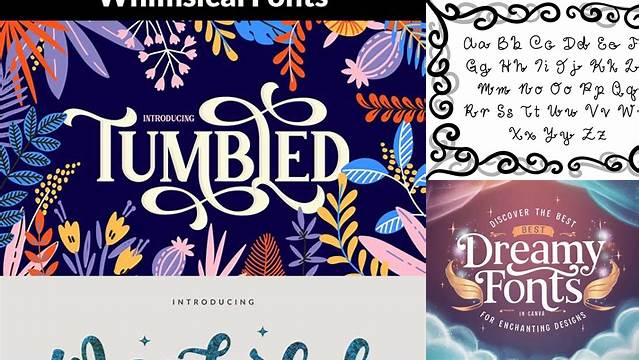
10 Best Curly Fonts For Whimsical Designs
Curly fonts, with their playful loops and elegant swirls, are a fantastic way to add personality and flair to your designs. Whether you're working on a branding project, designing invitations, or crafting social media graphics, the right curly font can make all the difference. In this guide, we'll explore some of the best curly fonts available, discuss their unique characteristics, and provide tips on how to use them effectively. Let's dive in and discover the world of whimsical typography!
What Are Curly Fonts?
Curly fonts, also known as script fonts or handwritten fonts, are characterized by their flowing strokes and decorative flourishes. They mimic the look of cursive handwriting, often featuring loops, swirls, and elegant curves. These fonts exude a sense of creativity, warmth, and personality, making them ideal for projects that require a touch of human touch. Curly fonts are incredibly versatile and can range from playful and casual to elegant and sophisticated, offering a wide array of options for different design needs.
Types of Curly Fonts
Curly fonts come in various styles, each with its own unique charm. Some common types include:
- Calligraphic Fonts: These fonts resemble traditional calligraphy, with graceful strokes and elaborate letterforms. They often convey a sense of elegance and sophistication, making them suitable for formal invitations, wedding designs, and luxury branding.
- Brush Script Fonts: Designed to mimic the look of brush lettering, these fonts have a more textured and dynamic appearance. They are perfect for projects that need a handmade or artistic touch, such as logos, posters, and packaging.
- Handwritten Fonts: These fonts aim to replicate natural handwriting, often featuring slight imperfections and variations in stroke weight. They add a personal and authentic feel to designs, making them great for social media graphics, blog headers, and personal projects.
- Swash Fonts: Swash fonts include decorative extensions or flourishes on certain letters, adding an extra touch of elegance and flair. They are often used sparingly to highlight key words or phrases in a design.
Characteristics of Great Curly Fonts
When choosing a curly font, there are several factors to consider to ensure it aligns with your project's goals. Great curly fonts are not only visually appealing but also highly functional and versatile. Here are some key characteristics to look for:
- Readability: While curly fonts are decorative, readability should always be a priority. Choose fonts that are easy to read, especially in smaller sizes. Avoid fonts with overly complex or intricate letterforms that can become illegible.
- Legibility: Legibility refers to how easily individual letters can be distinguished from one another. A font with good legibility ensures that the message is clear and easily understood. Pay attention to the distinctiveness of each letter, especially lowercase letters.
- Versatility: A versatile curly font can be used in a variety of design contexts. Look for fonts that come in multiple weights and styles, allowing you to create visual hierarchy and add depth to your designs. Fonts that include alternate characters or ligatures can also enhance their versatility.
- Personality: The font should reflect the overall tone and style of your project. Consider whether you need a font that is playful and casual or elegant and sophisticated. The font's personality should align with your brand or message.
- Kerning and Spacing: Proper kerning (the space between individual letters) and spacing (the space between words and lines) are crucial for readability and visual appeal. A well-kerned and spaced font will look polished and professional.
Top Curly Fonts for Your Projects
Now that we've discussed what makes a great curly font, let's explore some of the best options available. These fonts have been carefully selected for their readability, versatility, and unique personalities. Whether you're designing a logo, creating invitations, or crafting social media content, there's a curly font on this list that will perfectly suit your needs. Let’s explore some top curly fonts:
1. Lobster
Lobster is a bold and playful script font that's perfect for headlines, logos, and posters. Its retro-inspired design and strong presence make it a popular choice for a variety of projects. Lobster's distinctive letterforms and smooth curves add a touch of vintage charm to any design. The font's slightly condensed form allows for a large number of characters to fit within a limited space, making it highly efficient for headlines and titles. The playful yet legible design of Lobster ensures it captures attention while remaining easily readable, making it a versatile choice for both print and digital media. Lobster is also notable for its extensive character set, which includes a variety of alternate characters and ligatures, providing designers with numerous options to customize their typography. This feature allows for a more bespoke and handcrafted feel, ensuring each design can achieve a unique and personalized touch. The bold nature of Lobster makes it an excellent choice for branding materials, ensuring a strong and memorable visual identity.
2. Pacifico
Pacifico is a fun and friendly brush script font that exudes a casual and approachable vibe. It's ideal for websites, blogs, and social media graphics. The rounded letterforms and slightly irregular strokes of Pacifico give it a natural, handwritten feel. This font is particularly well-suited for projects aiming to convey a sense of warmth and authenticity, making it a favorite for designs that require a personal touch. Pacifico's clean and legible design ensures that it remains readable even in smaller sizes, adding to its versatility across various applications. The casual and approachable nature of Pacifico makes it a perfect fit for branding elements of businesses targeting a young or family-oriented demographic, creating a friendly and inviting visual appeal. Its flowing lines and relaxed style contribute to a laid-back aesthetic, ideal for informal communications and designs.
3. Great Vibes
Great Vibes is an elegant and flowing calligraphy font that adds a touch of sophistication to invitations, wedding designs, and formal announcements. Its graceful curves and delicate strokes create a sense of timeless beauty. Great Vibes is perfect for projects that require a touch of class and refinement, making it a popular choice for high-end branding and editorial design. The font’s elegant letterforms and balanced proportions make it highly legible, ensuring that it remains readable even in extended text passages. The swashes and flourishes add a decorative element without compromising readability, enhancing its versatility across different design contexts. Great Vibes excels in projects where a sense of tradition and sophistication is desired, making it a superb choice for formal events and luxurious branding.
4. Dancing Script
Dancing Script is a modern and playful script font that's perfect for adding a touch of whimsy to your designs. Its bouncy baseline and flowing letterforms create a sense of movement and energy. The informal yet legible style of Dancing Script makes it a versatile choice for various applications, from headlines and logos to body text. This font is particularly well-suited for projects aiming to convey a sense of fun and creativity, making it a favorite for designs that need a lighthearted touch. Dancing Script's unique character and lively appearance make it an excellent choice for branding projects that seek to stand out with a distinct personality. Its irregular rhythm and playful nature add a dynamic and engaging quality to any design, ensuring it captures attention and communicates a sense of joy and enthusiasm.
5. Cookie
Cookie is a sweet and charming script font that's reminiscent of vintage signage and hand-lettered posters. Its rounded letterforms and playful curves give it a friendly and approachable feel. Cookie is perfect for projects that require a touch of nostalgia and warmth, making it a great choice for food-related branding, packaging, and advertising. The font’s clean and legible design ensures that it remains readable even in smaller sizes, adding to its versatility across various applications. The playful and inviting nature of Cookie makes it an excellent fit for branding elements that aim to create a welcoming and comforting visual appeal. Its vintage-inspired style and smooth curves contribute to a classic and timeless aesthetic, perfect for projects that seek to evoke a sense of tradition and quality.
6. Kaushan Script
Kaushan Script is a bold and dynamic brush script font that adds a touch of energy and personality to your designs. Its irregular strokes and textured appearance give it a handmade feel, making it perfect for logos, posters, and social media graphics. The energetic and expressive style of Kaushan Script makes it a standout choice for projects that need to grab attention and convey a sense of action. This font's strong presence and unique character make it particularly well-suited for branding projects that seek to stand out with a bold and confident visual identity. Kaushan Script’s distinct personality and dynamic appearance ensure it adds a memorable and impactful touch to any design, making it ideal for projects that aim to make a statement.
7. Playfair Display SC
While technically a serif font, Playfair Display SC's elegant and decorative letterforms make it a great choice for projects that need a touch of sophistication and flair. Its tall, slender letters and delicate serifs create a sense of refinement and grace. Playfair Display SC is perfect for headlines, titles, and logos, adding a touch of class to any design. The font’s elegant proportions and balanced letterforms make it highly legible, ensuring that it remains readable even in extended text passages. The decorative elements and sophisticated style of Playfair Display SC make it a superb choice for projects that require a sense of formality and luxury, such as editorial design, high-end branding, and formal invitations. Its timeless beauty and refined appearance ensure it adds a touch of elegance to any project.
8. Ruthie
Ruthie is a beautifully flowing script font that exudes elegance and grace. Its delicate strokes and graceful curves make it a perfect choice for wedding invitations, thank you cards, and other special occasion designs. The refined and sophisticated style of Ruthie makes it ideal for projects that require a touch of timeless beauty and elegance. This font’s delicate letterforms and balanced proportions make it highly legible, ensuring that it remains readable even in smaller sizes. Ruthie’s classic charm and graceful appearance make it an excellent choice for projects that aim to convey a sense of romance and sophistication, such as bridal branding, stationery design, and elegant packaging.
9. Aphrodite Pro
Aphrodite Pro is a luxurious and ornate script font that's perfect for adding a touch of glamour to your designs. Its elaborate flourishes and decorative swashes create a sense of opulence and sophistication. The elegant and refined style of Aphrodite Pro makes it a standout choice for projects that need to convey a sense of luxury and exclusivity. This font's intricate letterforms and balanced proportions make it highly legible, ensuring that it remains readable even with its decorative elements. Aphrodite Pro's opulent appearance and sophisticated charm make it an exceptional choice for high-end branding, formal invitations, and any project that aims to exude elegance and prestige.
10. Notera
Notera is a playful and casual script font that's perfect for adding a touch of fun to your designs. Its bouncy letterforms and handwritten style give it a friendly and approachable feel. The informal and cheerful style of Notera makes it ideal for projects that require a lighthearted and engaging touch. This font’s playful character and legible design make it a versatile choice for various applications, from social media graphics and blog headers to greeting cards and informal invitations. Notera's friendly appearance and casual charm ensure it adds a welcoming and joyful element to any design, making it perfect for projects that aim to communicate warmth and positivity.
Tips for Using Curly Fonts Effectively
Curly fonts can be a powerful design tool, but they need to be used thoughtfully to achieve the best results. Here are some tips for using curly fonts effectively:
- Use Sparingly: Curly fonts are best used sparingly, as they can be overwhelming if overused. Use them for headlines, titles, or to highlight key words and phrases, rather than for large blocks of text.
- Pair with Simple Fonts: Curly fonts pair well with simple, clean fonts such as sans-serif fonts. This creates a visual contrast that enhances readability and visual appeal.
- Consider the Context: Choose a curly font that aligns with the overall tone and style of your project. A formal event requires a more elegant font, while a casual project can benefit from a playful script.
- Pay Attention to Size and Spacing: Ensure that your curly font is legible at the size you're using it. Adjust the letter spacing and line height as needed to improve readability.
- Test and Refine: Always test your font choices in different contexts to ensure they look good on various devices and in different sizes. Don't be afraid to experiment and refine your choices until you achieve the desired result.
Curly fonts are a fantastic way to add personality, flair, and a touch of whimsy to your designs. By understanding the different types of curly fonts and how to use them effectively, you can create visually stunning and engaging projects. From elegant calligraphic fonts to playful brush scripts, the options are endless. So, go ahead and explore the world of curly fonts and let your creativity flow!
By carefully selecting and using curly fonts, you can transform your designs and make a lasting impression. Whether you're working on a branding project, designing invitations, or crafting social media graphics, the right curly font can elevate your work and help you communicate your message with style and personality. So, embrace the charm of curly fonts and let your designs shine!